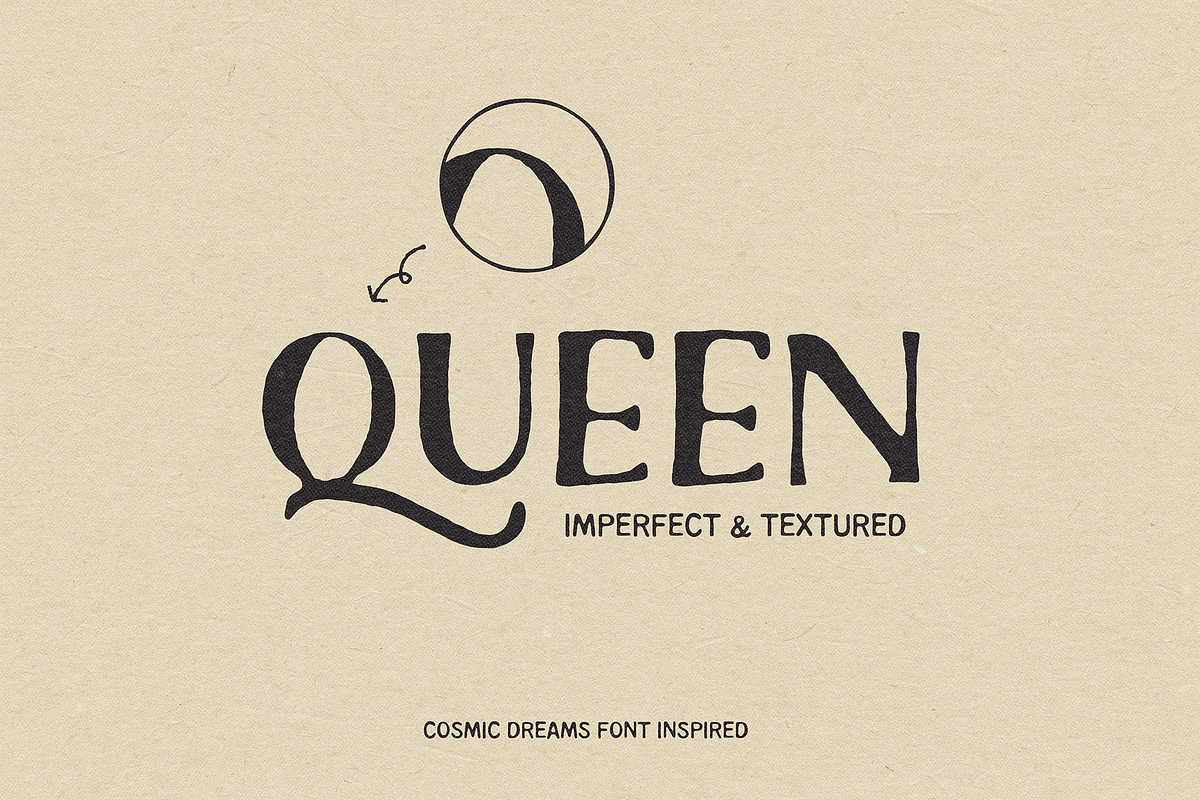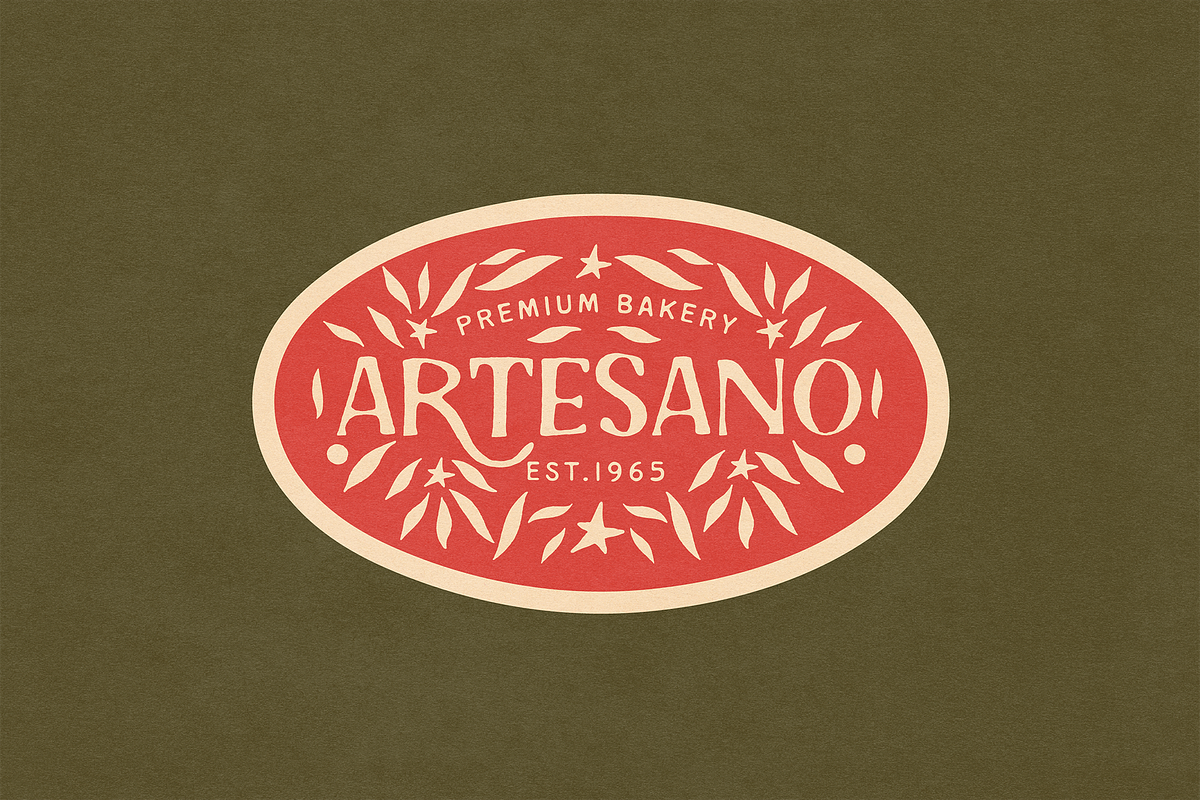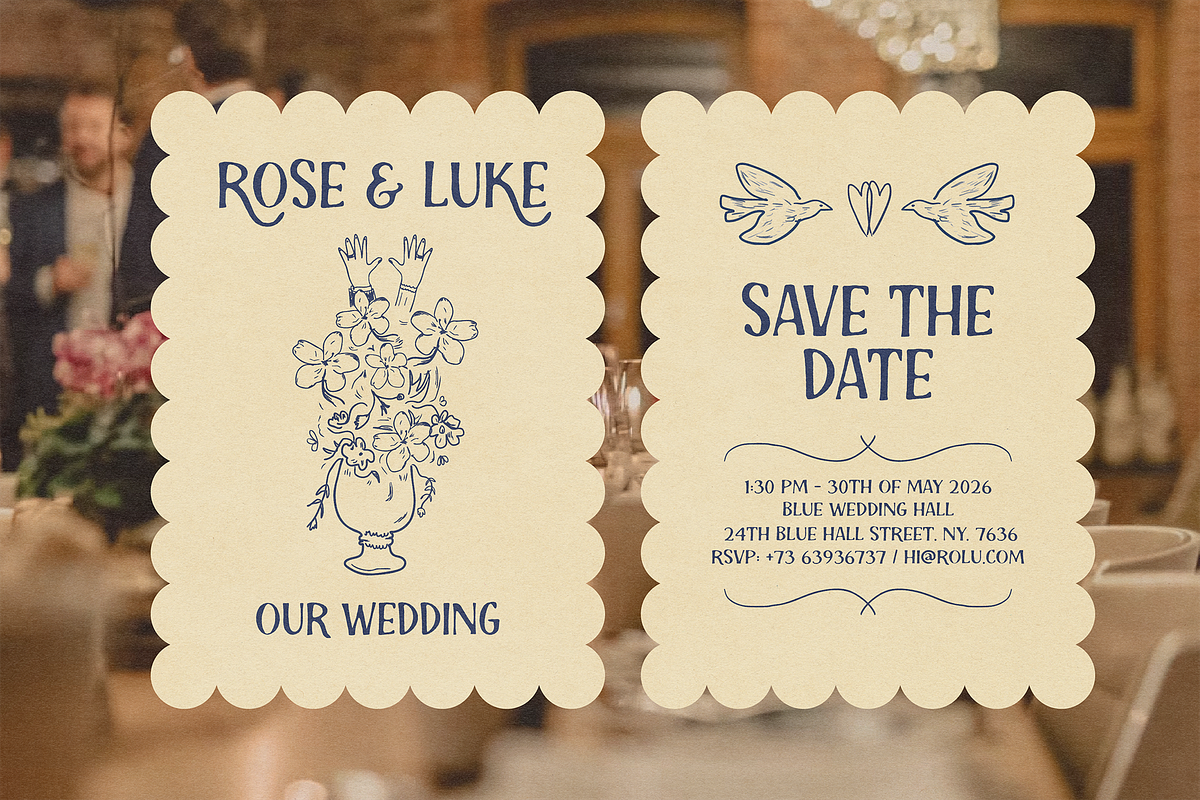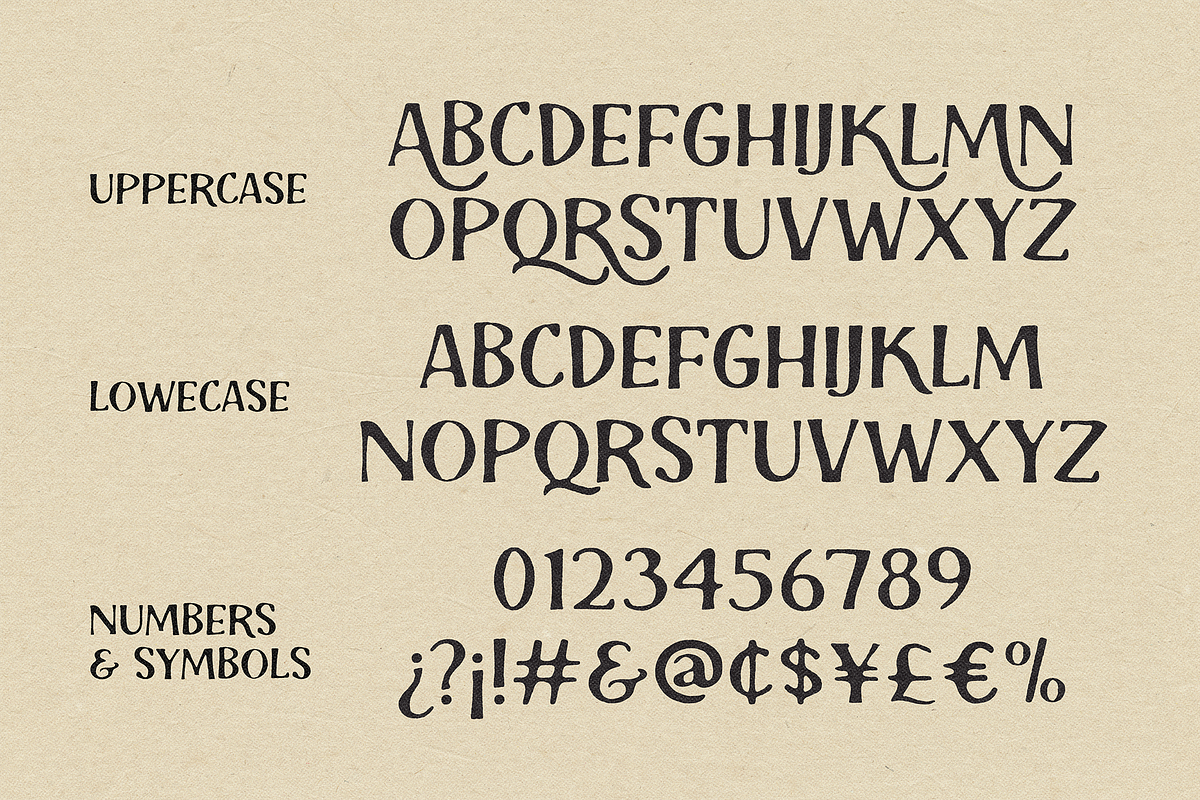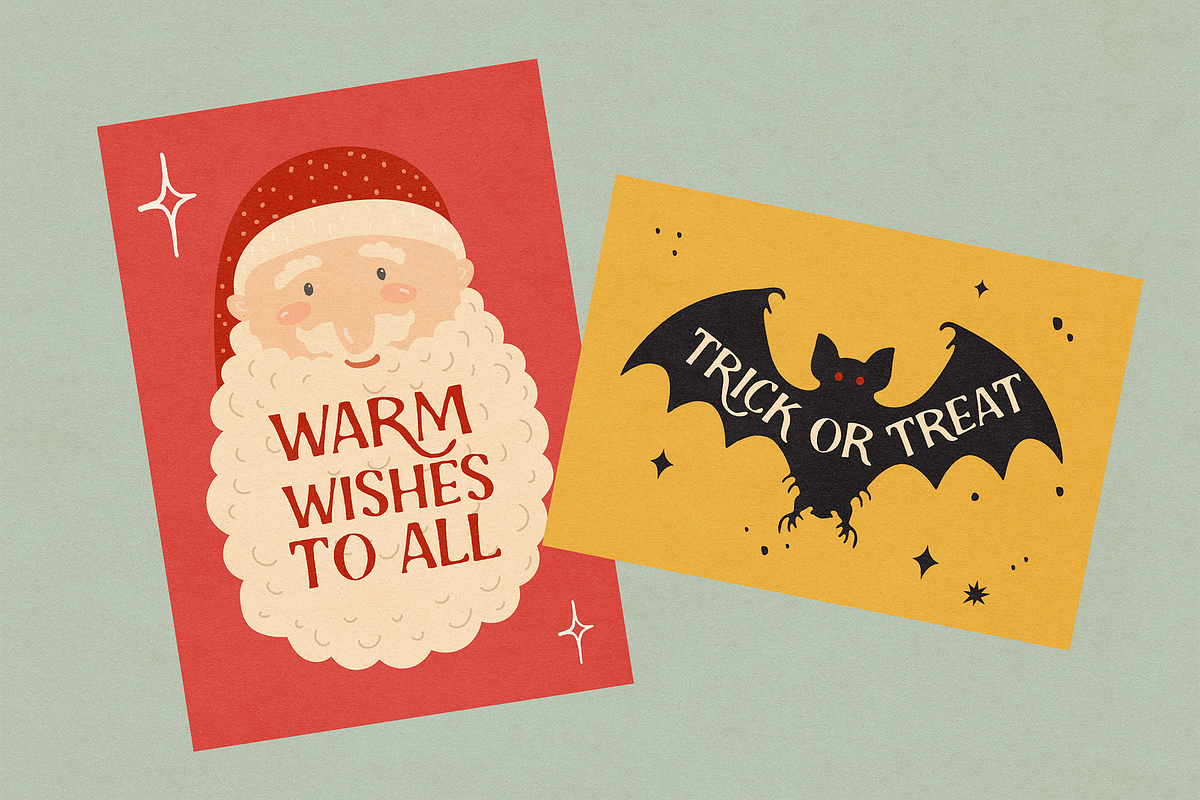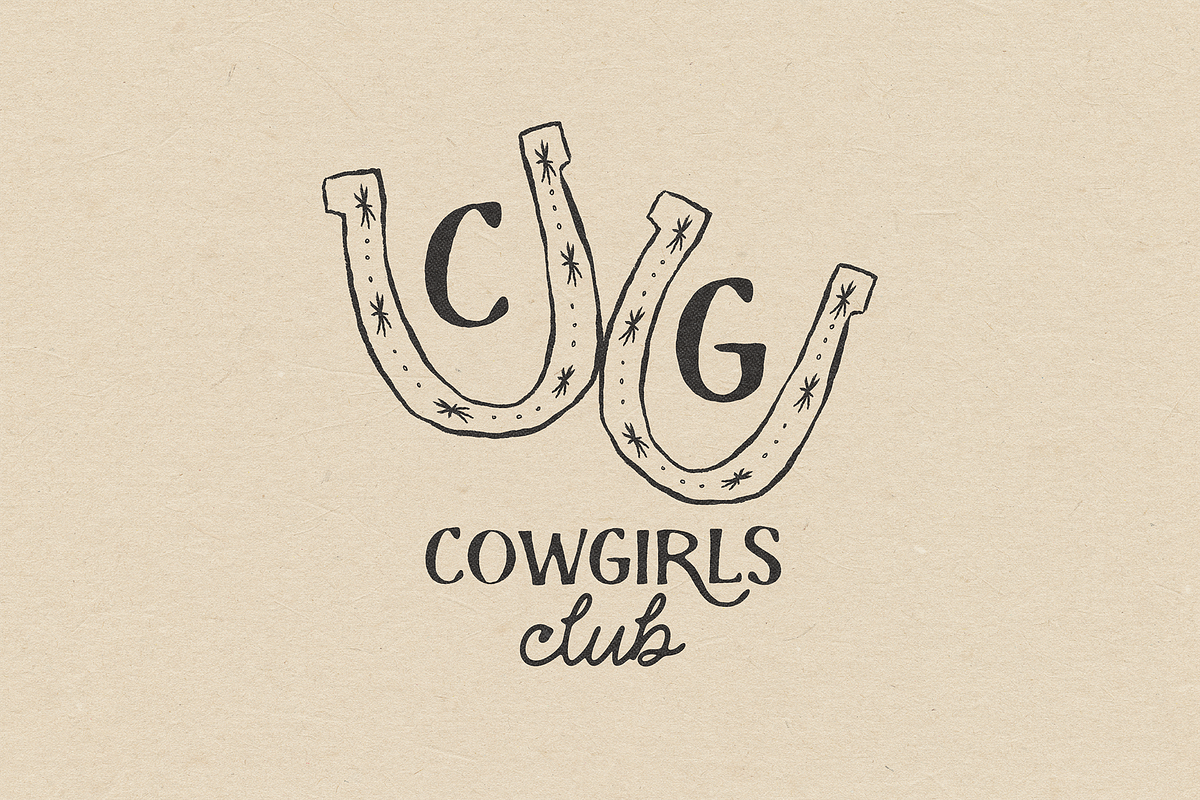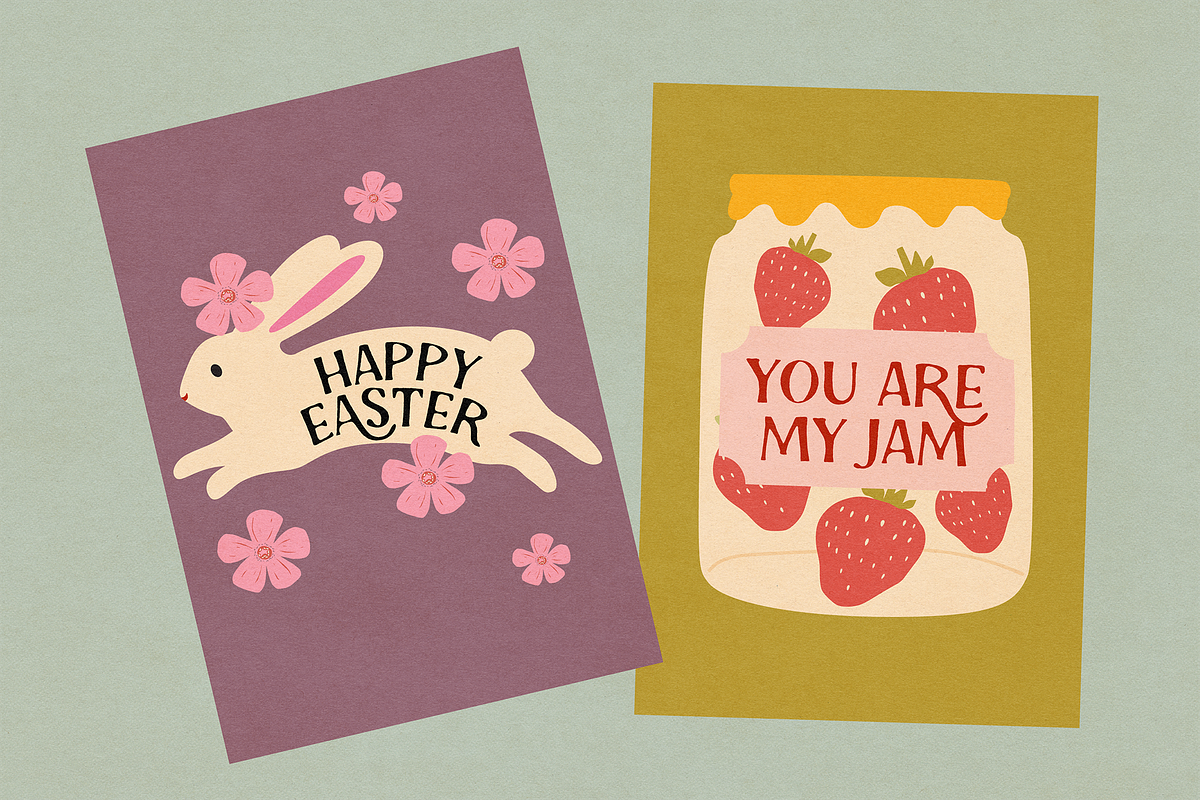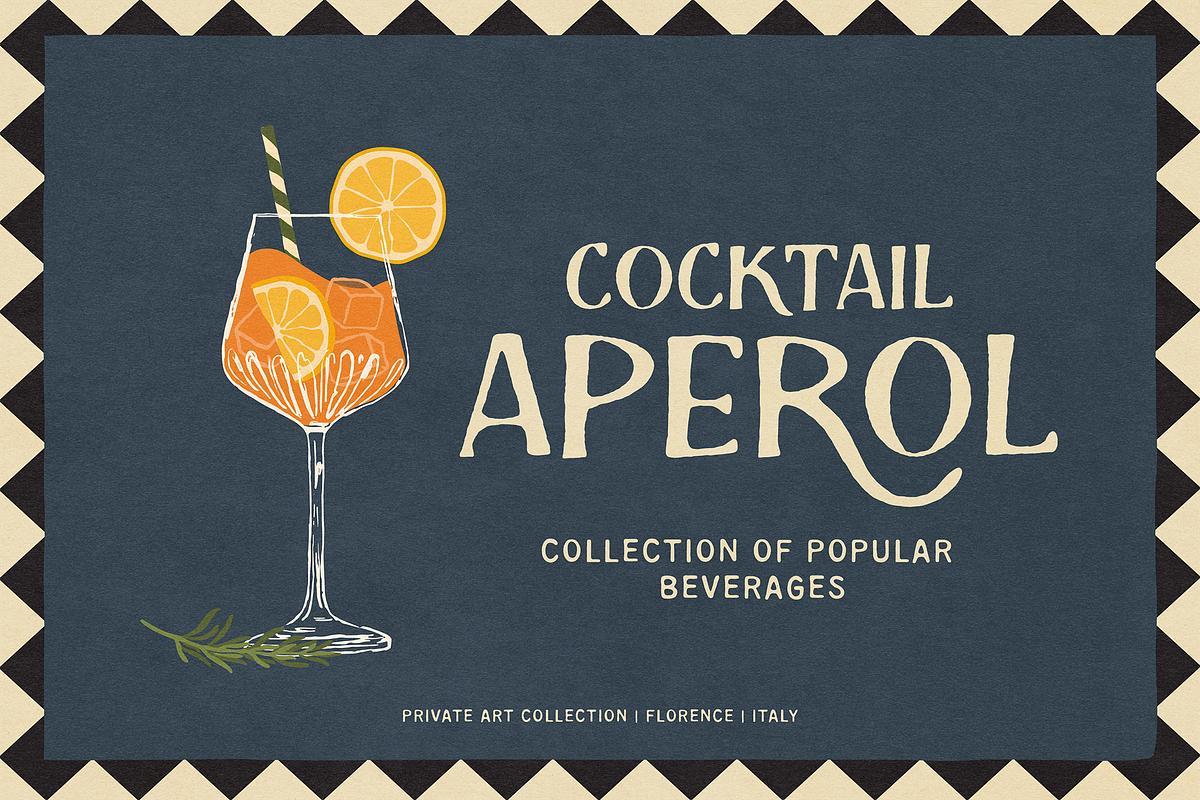
FORTUNE | WHIMSICAL FONT
FORTUNE is a textured, hand-drawn display font filled with mystical, whimsical and organic charm. With a perfect balance between elegance and informality, it's ideal for headlines, quotes, wedding invitations, greeting cards, packaging, and much more. Whether you’re designing something magical, or simply want to add a handcrafted feel, this font will bring your ideas to life.
It includes 5 stunning uppercase (A, K, M, Q, R) that instantly elevate your text with a refined, eye-catching look. Inspired by my earlier font Cosmic Dreams, FORTUNE is a refined and versatile typeface born from years of lettering experience, offering a versatile, dreamy, and bold option for all your creative projects.